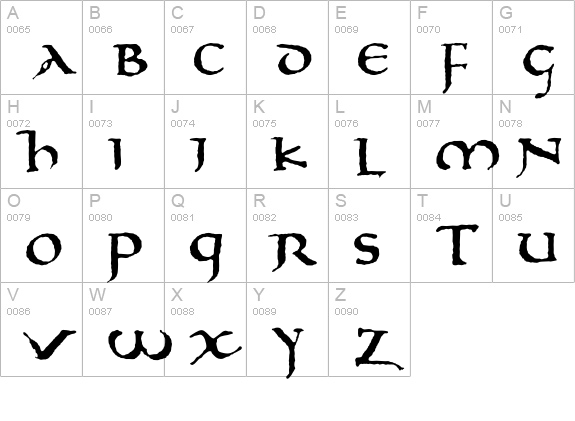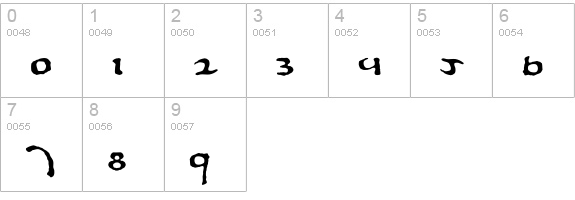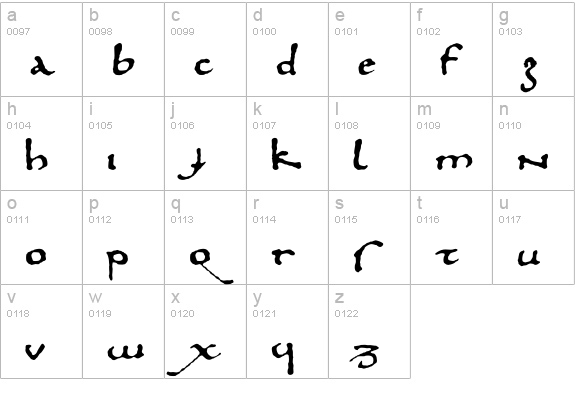
Prophecy Font Details
Prophecy font is a captivating and versatile typeface that exudes an aura of mystique and elegance. Its intricate details and delicate curves make it a perfect choice for adding a touch of sophistication to your design projects. With its timeless appeal and modern twist, Prophecy font effortlessly combines tradition with innovation, making it a standout choice for a wide range of creative endeavors. What makes Prophecy font even more appealing is that it is available for free download at FontsMarket.com. This means that you can easily access this exquisite font and incorporate it into your projects without any cost. Whether you are designing a website, creating branding materials, or crafting eye-catching graphics, Prophecy font is sure to elevate your work to the next level. Embrace the allure of Prophecy font and let its enchanting beauty transform your designs with grace and style.